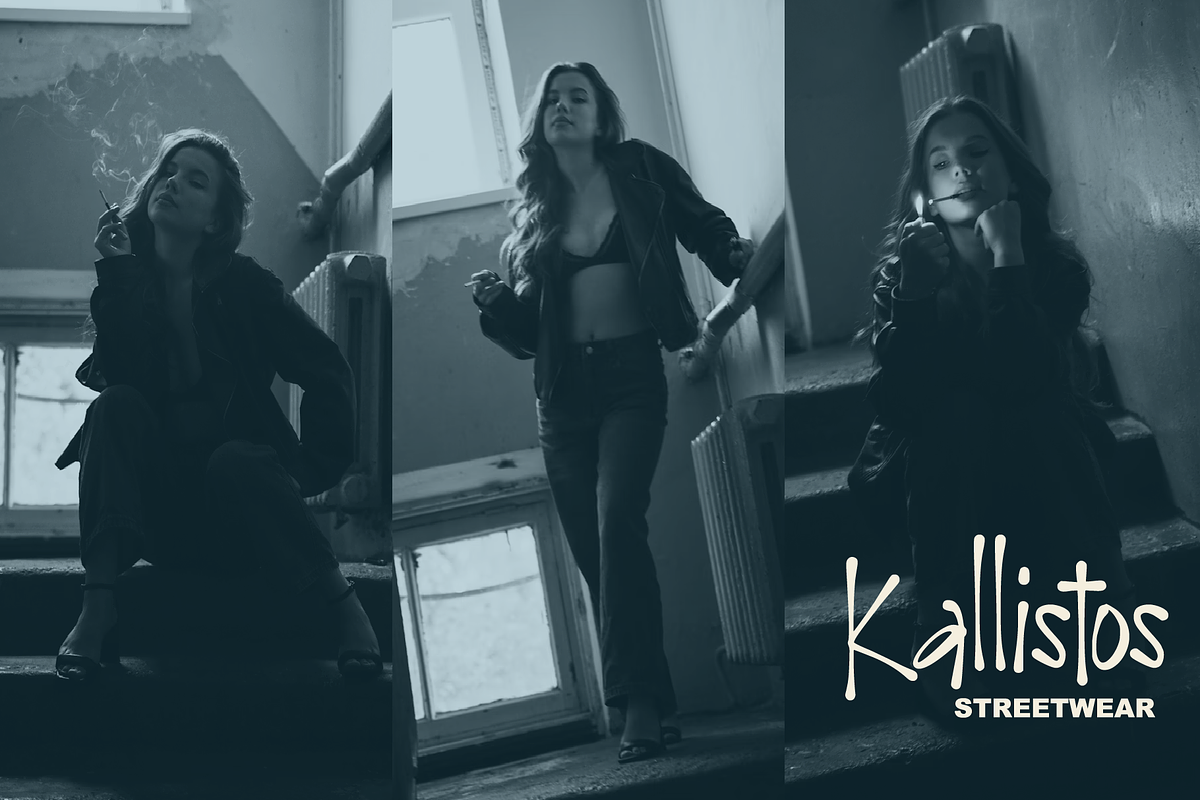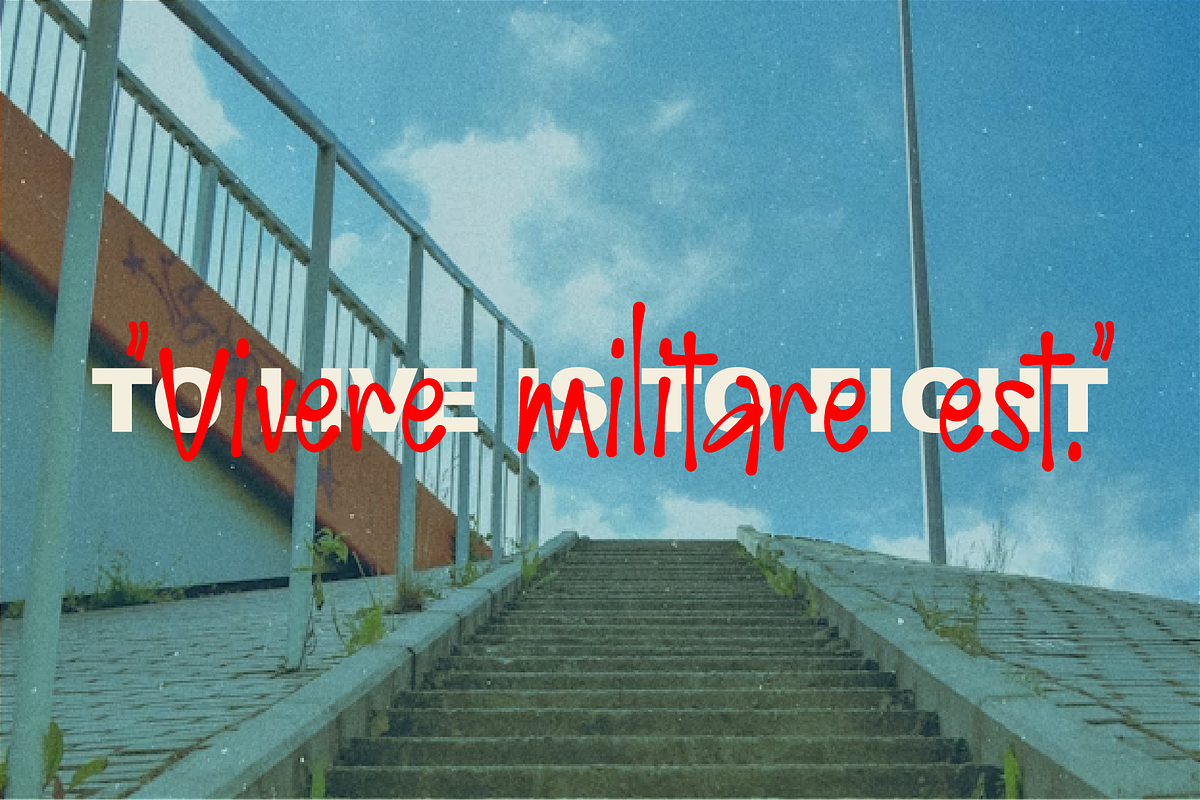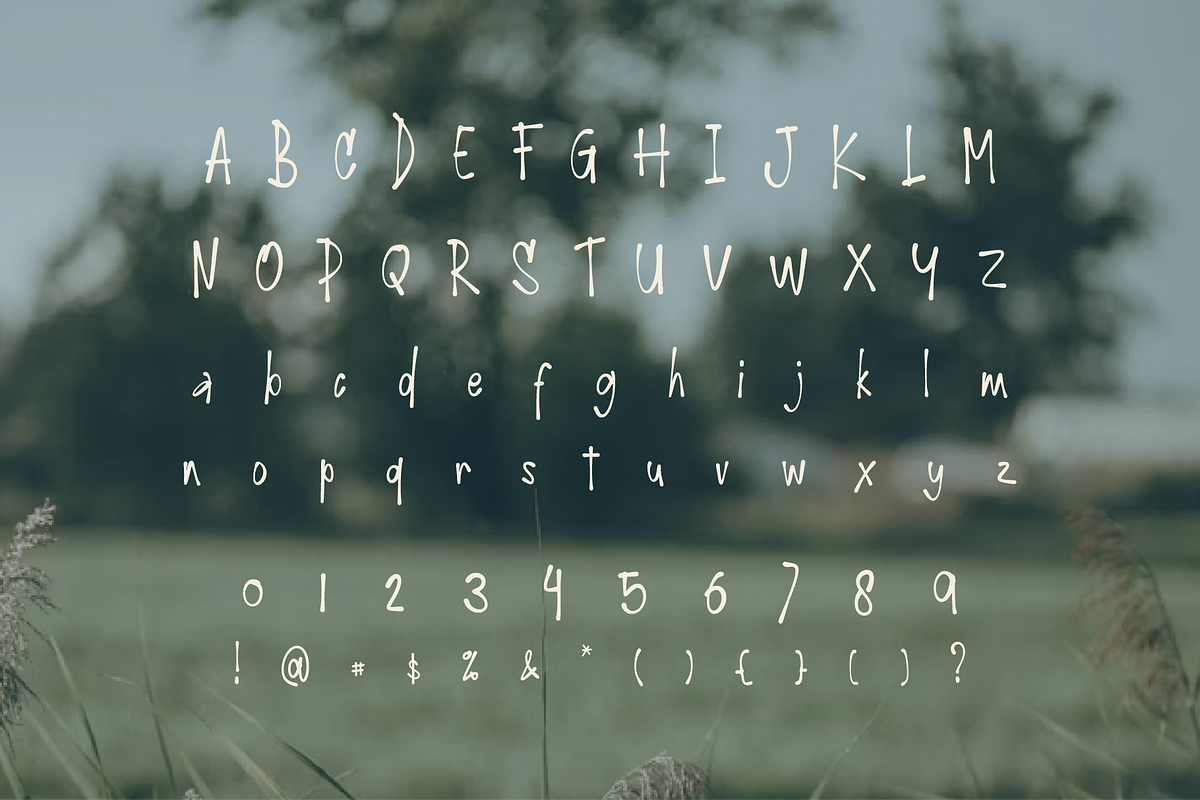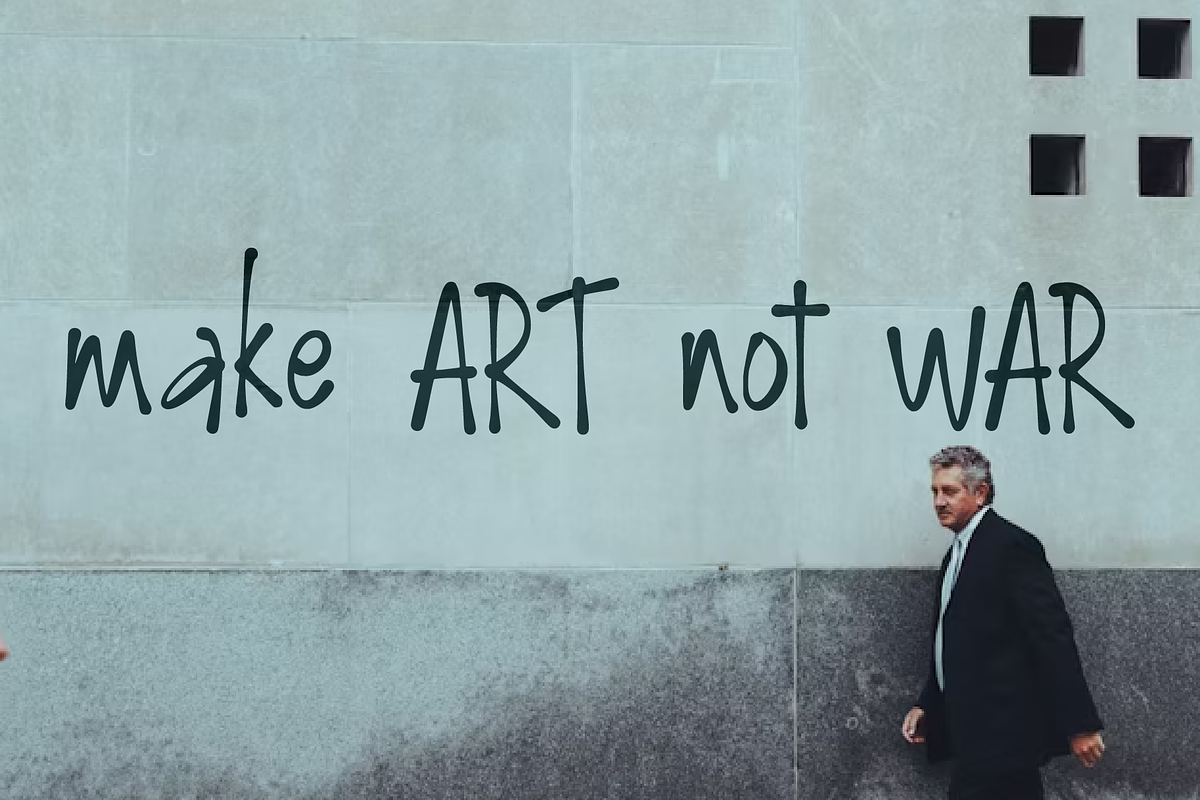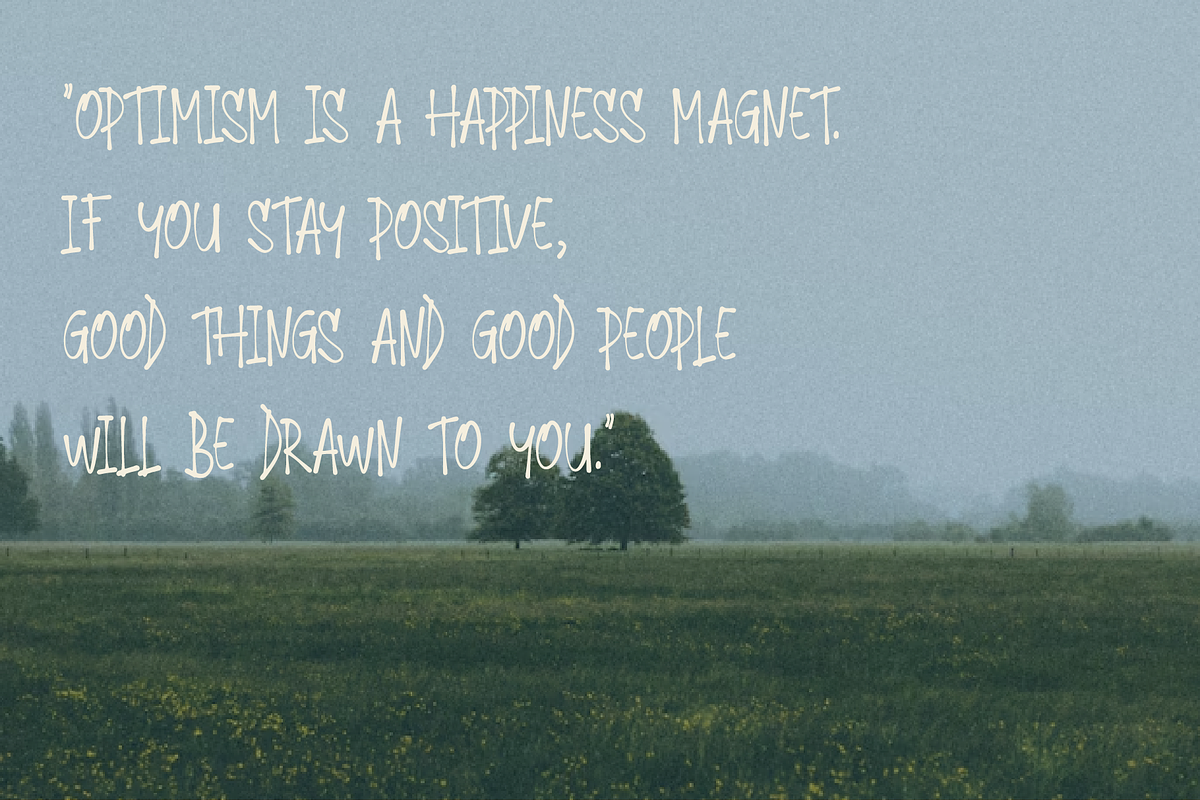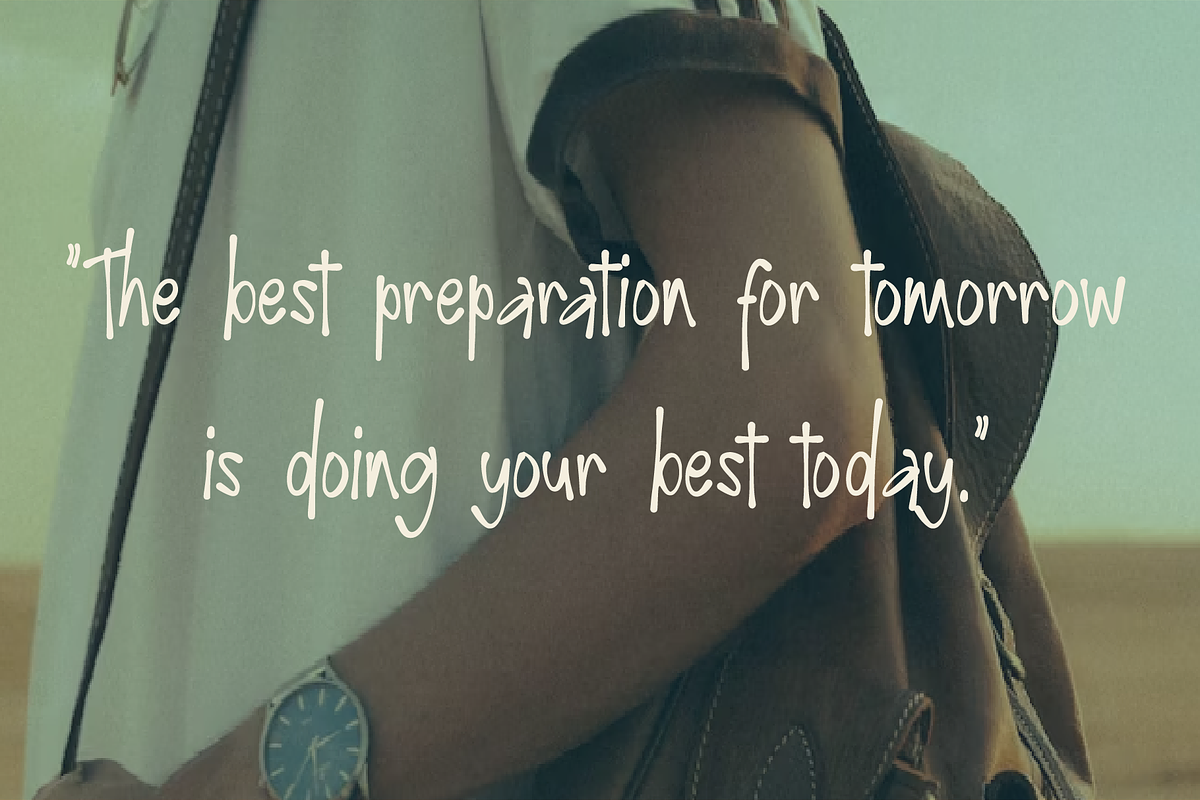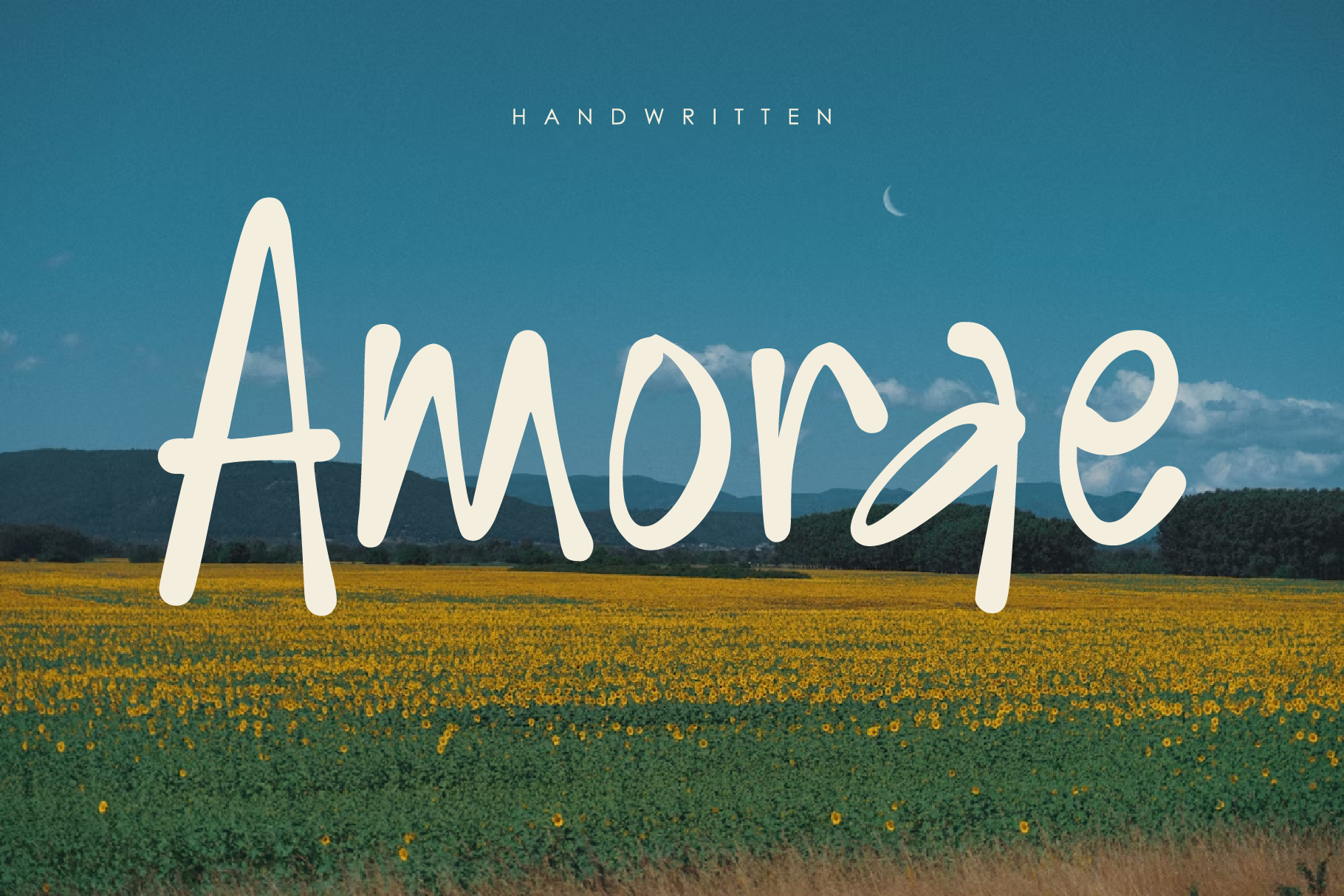
Amorae – Handwritten Font
Amorae is a graceful handwritten font with a soft, romantic flow and natural pen strokes. Designed to feel warm, personal, and effortlessly elegant, Amorae brings a human touch to modern design without losing clarity and readability.
Perfect for branding, logos, social media, wedding designs, quotes, packaging, and lifestyle visuals, Amorae balances casual handwriting with a refined aesthetic—making it versatile for both creative and commercial projects.
- Natural handwritten style
- Smooth, flowing letterforms
- Clean and readable characters
- Works beautifully for digital & print use
Amorae is made for designers who want authenticity, charm, and a timeless handwritten feel in one font.